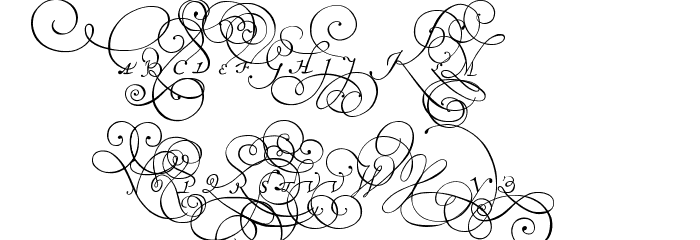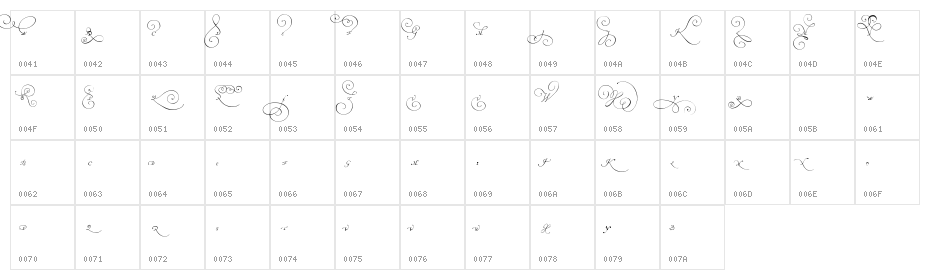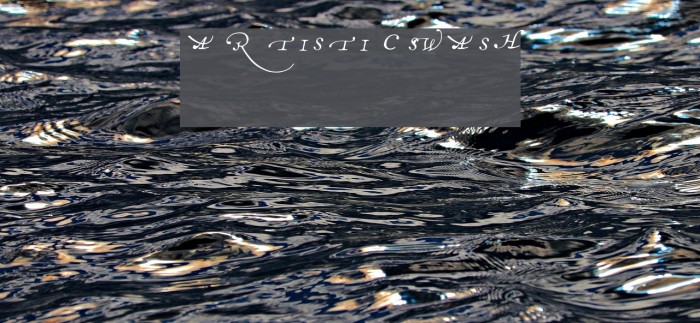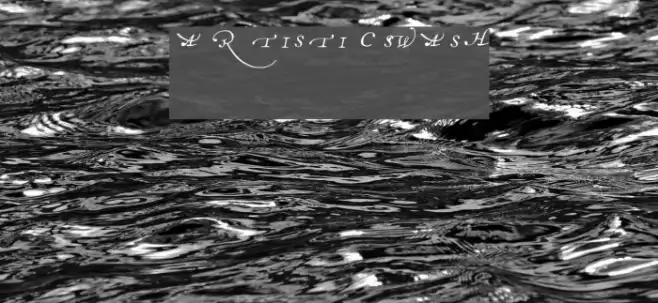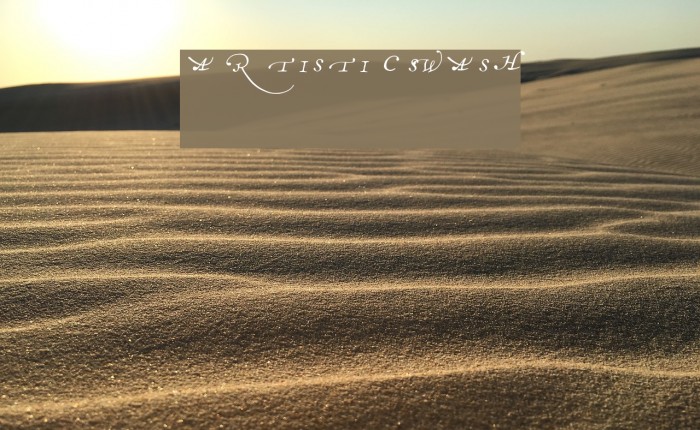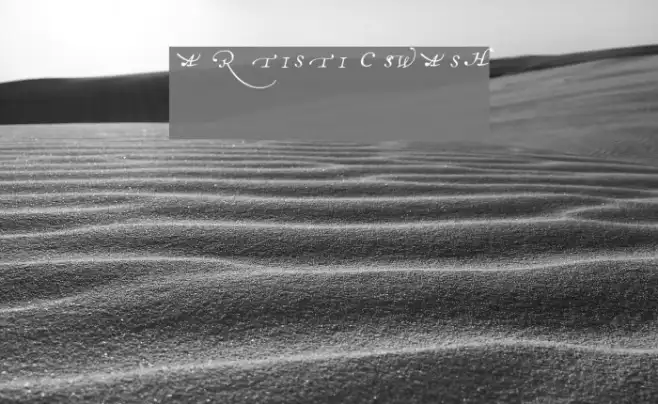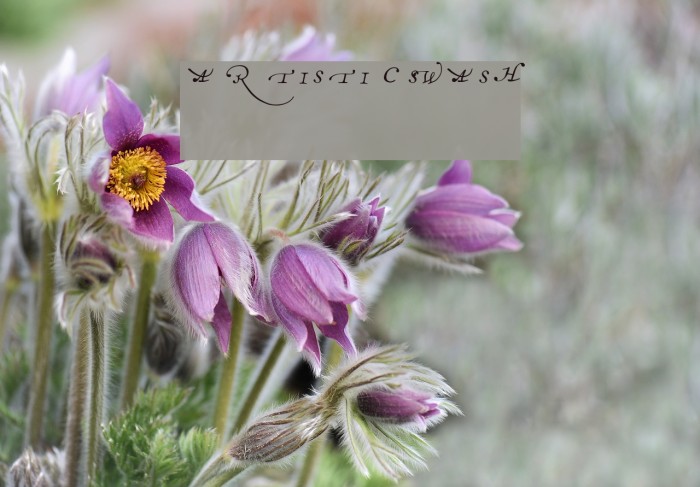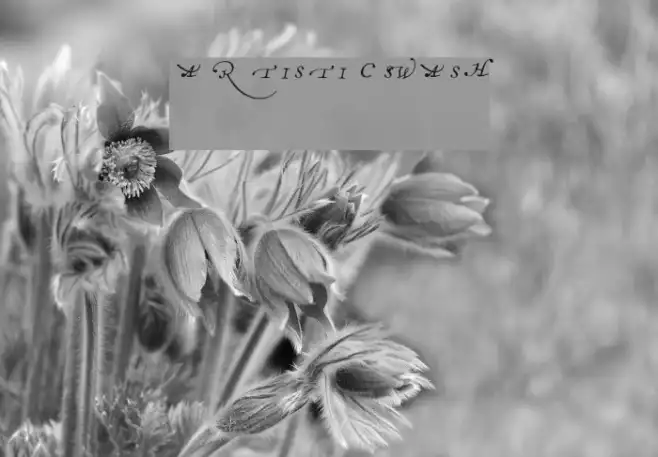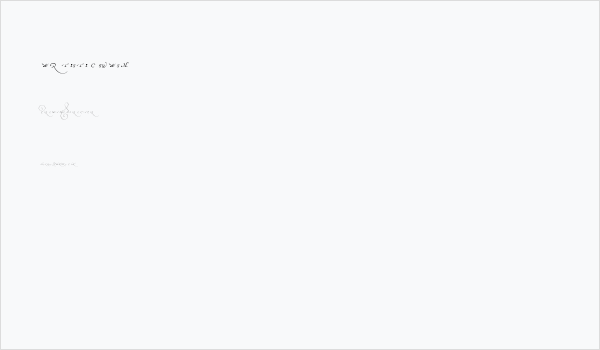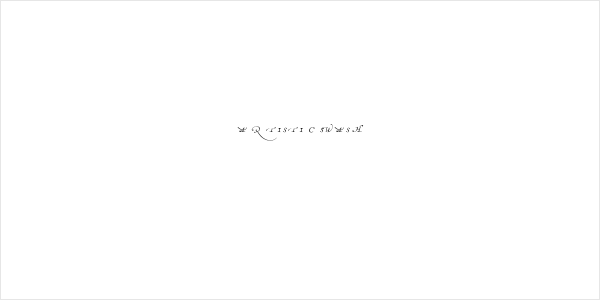
artistic swash Font
artistic swash Description
This font is an elaborate and decorative script characterized by its extensive use of swashes and flourishes. Each letter is adorned with intricate loops and curves, creating a sense of elegance and sophistication. The uppercase letters are particularly ornate, with extended strokes that intertwine and overlap, forming a complex visual tapestry. The lowercase letters maintain a consistent style, though they are slightly less embellished. This font is highly stylized, making it suitable for artistic and decorative purposes rather than practical text applications. Its intricate design demands attention and can serve as a focal point in design projects.
| Use Case | Logos, Invitations, Artistic Displays |
| Proposed Projects | Ideal for wedding invitations, luxury branding, artistic posters, and decorative certificates. |